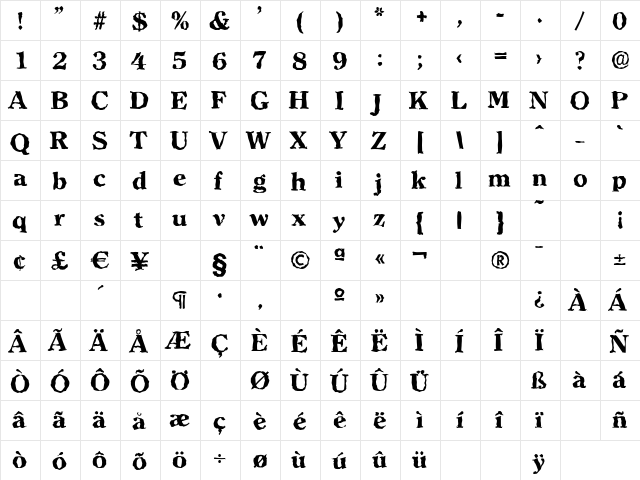
ClearfaceRandom-Xbold Regular
Design Context for ClearfaceRandom-Xbold Typeface
ClearfaceRandom-Xbold takes a measured approach to typography — its balanced proportions and neutral character make it a reliable workhorse for both digital and print work. Its bold stroke weight gives it real presence on the page.